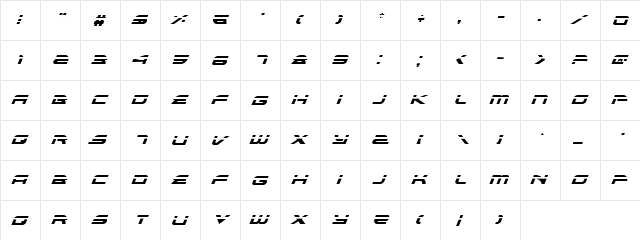
Alexis Laser Italic Laser Italic
Design Context for Alexis Laser Italic Typeface
Alexis Laser Italic takes a measured approach to typography — its balanced proportions and neutral character make it a reliable workhorse for both digital and print work. The slanted form adds forward momentum and visual energy.